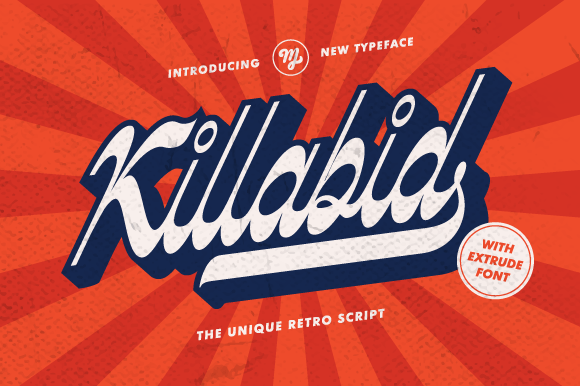
Journey through the era of vintage baseball with Killabid Script, the captivating retro font that captures the essence of the 70s. Inspired by the timeless aesthetics of the diamond, Killabid Font embodies the raw energy and nostalgic charm of America's favorite pastime. Immerse yourself in the golden age of baseball, where every swing and every catch tells a story.
Killabid Font's meticulously crafted characters evoke a sense of authenticity, transporting you back to the days of classic jerseys, wooden bats, and cheering crowds. Unleash your creativity and design stunning logos, posters, clothing, merchandise, and packaging that resonate with the vintage baseball spirit. With its bold uppercase and lowercase letters, numerals, punctuation, ligatures, alternate characters, and extra Extrude Font, Killabid Font offers endless possibilities for customization.
Express your individuality and make a statement with Killabid Font. Its alternate characters and ligatures invite you to mix and match letter pairs, creating unique and eye-catching designs that stand out from the crowd. Whether you're a seasoned designer or just starting out, Killabid Font is the perfect tool to elevate your projects with a touch of vintage flair.